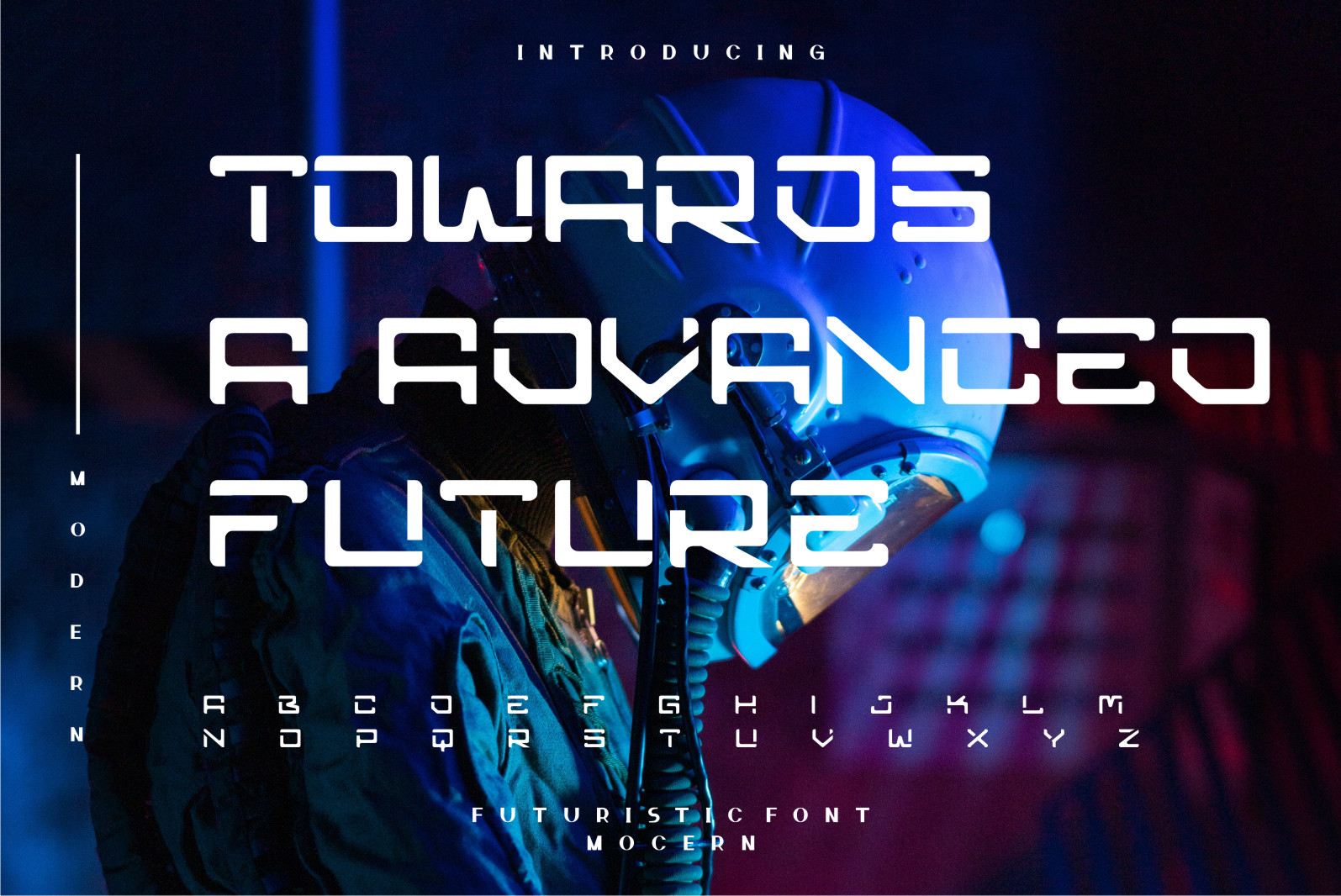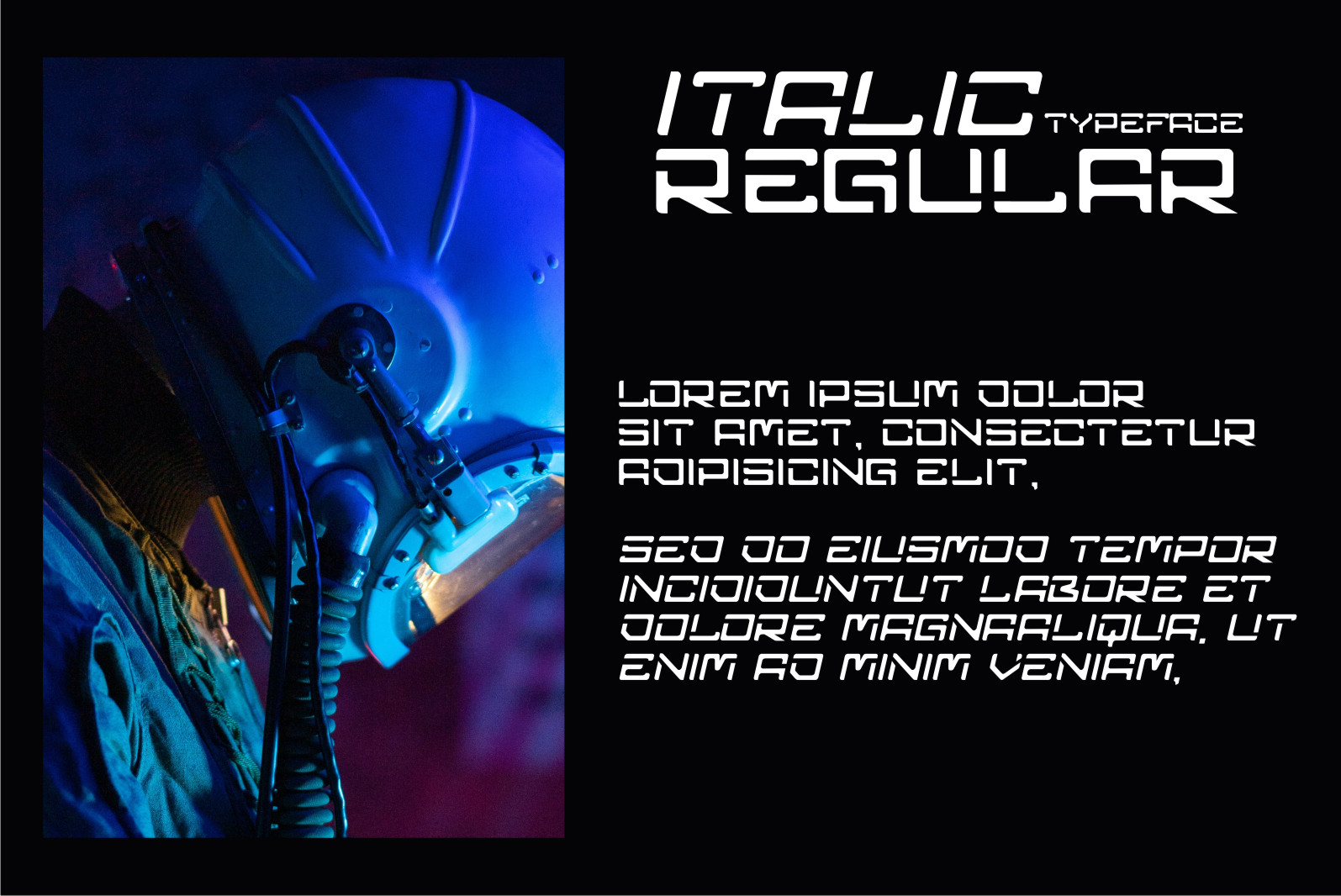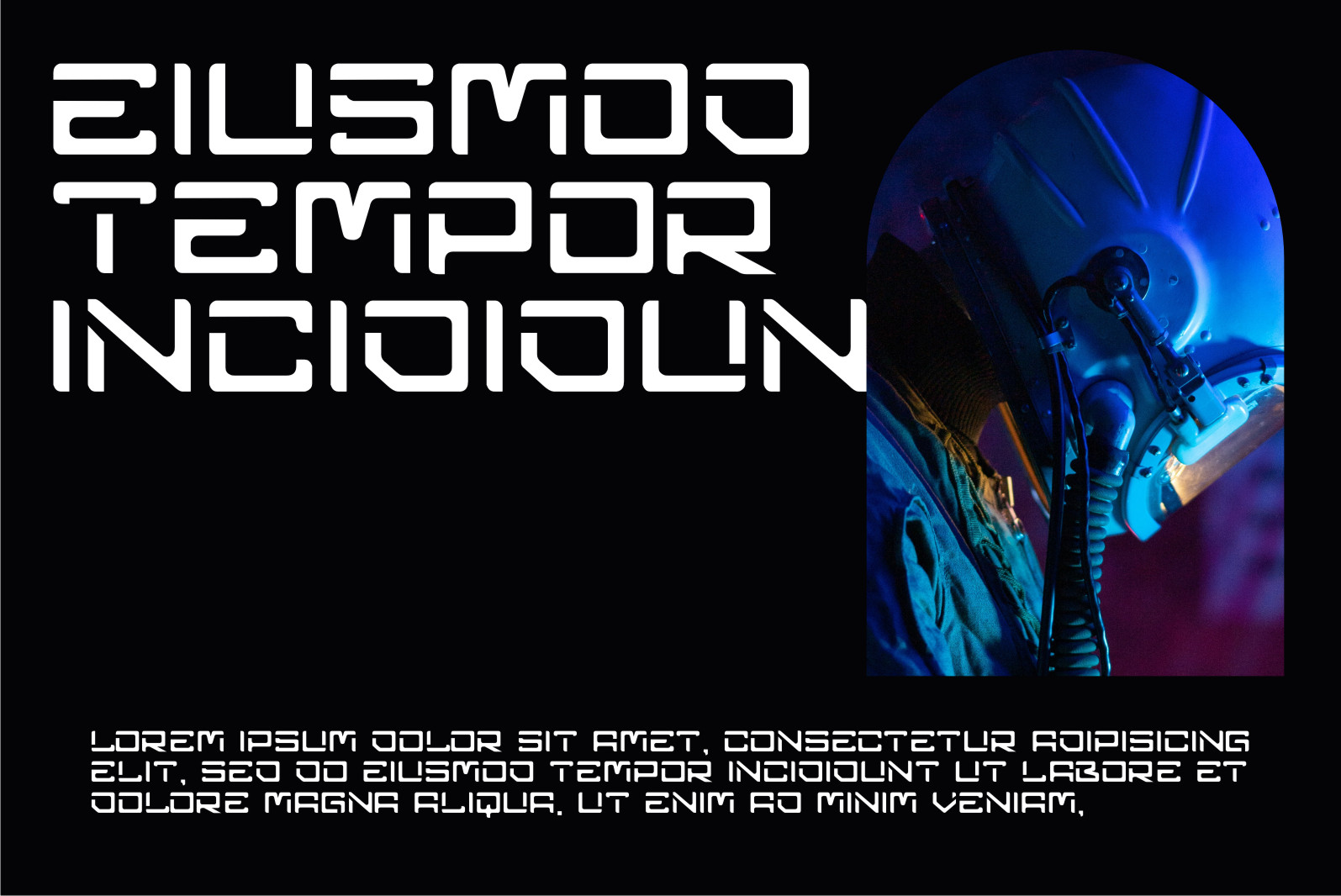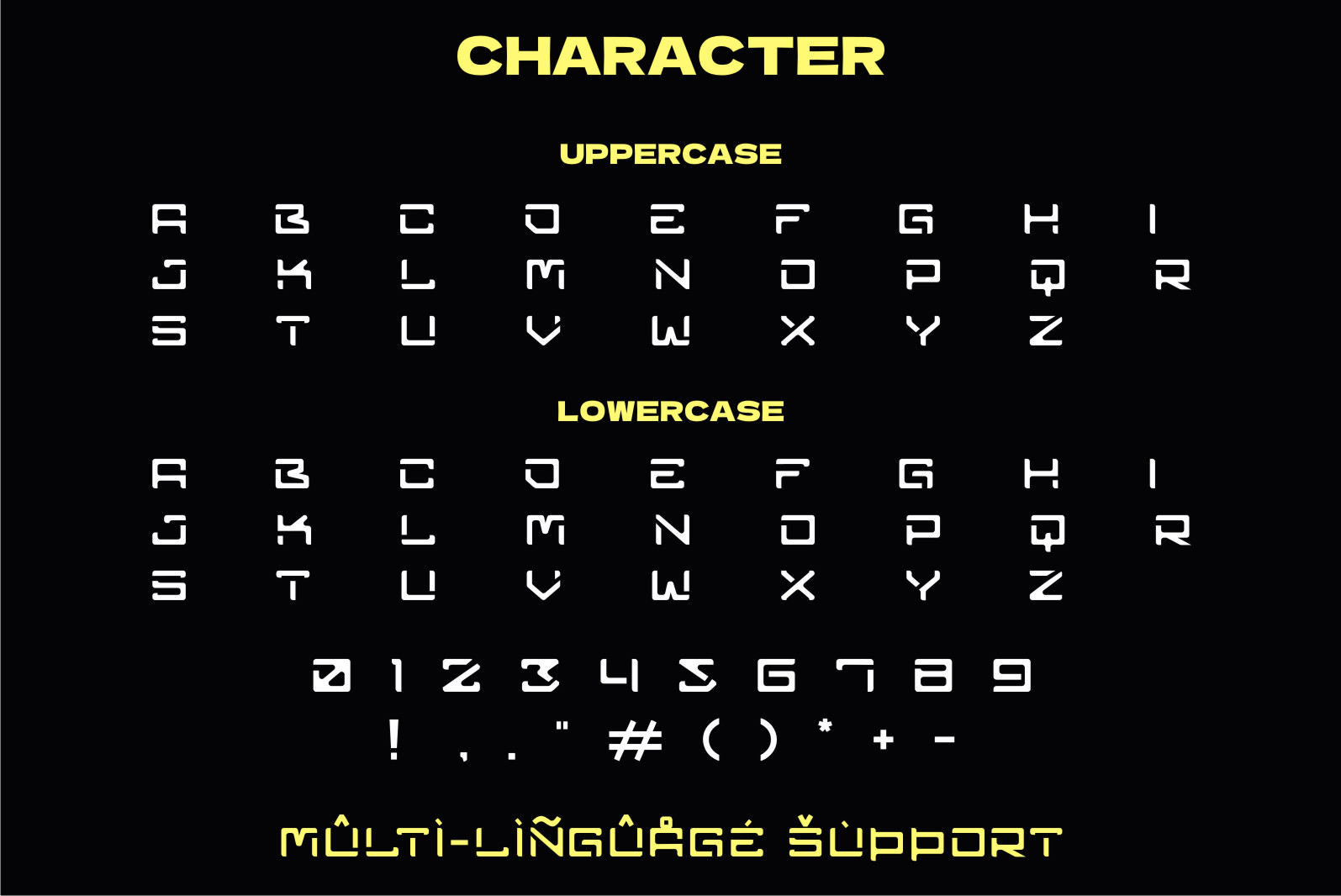
Carcon Font
Carcon Display Font
It’s a cool and robotic styled display font. This font is ideal for writing web designs, business cards, or pretty much anything else that requires a futuristic touch.